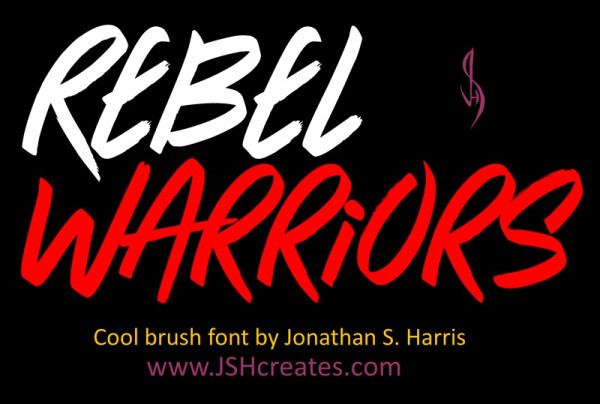
Rebel Warriors Font
Rebel Warriors Font is this cool hand-written brush font. “Rebel Warriors”. Perfect for advertising purposes, including invitation cards, book covers, shirts, posters, logos and much more!